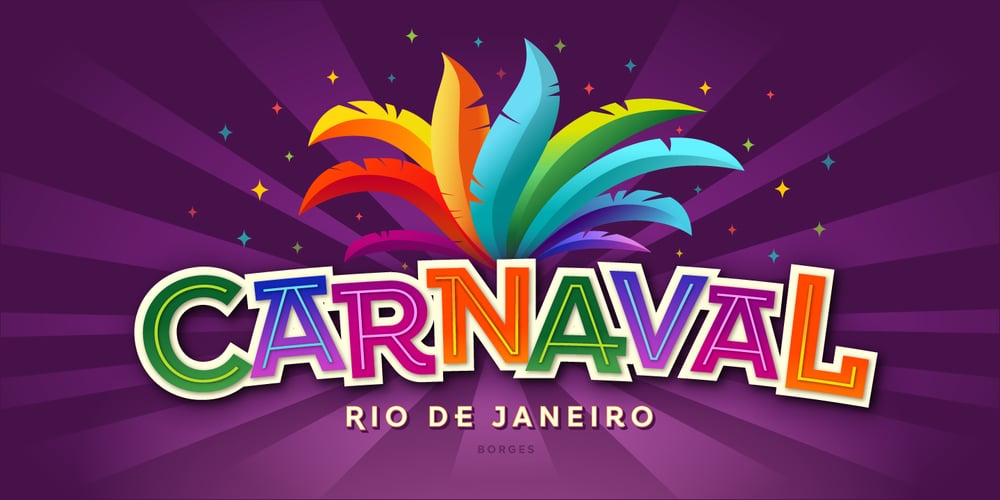
Versatile EP
Versatile EP font
Versatile EP Font Family was designed by Charles Borges de Oliveira and published by Borges Lettering. Versatile EP contains 9 styles and family package options. Versatile EP is a powerhouse of 9 fonts that make design and logo creation effortless. While other sans-serif fonts tend to be rigid and cold, Versatile stands out with it’s warm and natural feel. It’s generous x-height aids in its legibility and function, and the forms are classic yet modern allowing this font to live up to its name as a truly versatile workhorse for your next design or layout. Use it by itself, or in combination with Versatile 7 layer font package (Sold Separately.) https://www.myfonts.com/fonts/charlesborges/versatile-bold/Versatile EP contains 3 body styles, and 6 shadow fonts including striped and solid in different weights.Versatile EP is not just for the Graphic Designer. It’s well suited for the Sign Maker, Cricut and Silhouette users, and anyone else who uses a vinyl plotter. It weeds beautifully in cut vinyl. Its different layers allow the user to stack multi-colored vinyl to create one a kind signs and displays.Versatile EP is ideally suited for advertising and packaging, logo, branding and creative industries, poster and billboards, signage as well as web and screen design.What’s included: 9 Fonts included in for one low price: 3 body fonts and 6 different shadows. 1,462 Glyphs (Characters) in each font for a total of 13,158 Glyphs per style pack. Over 200 Languages supported including Cyrillic, Bulgarian Cyrillic and Greek. A massive library of Alternate Characters: Latin, Extended Latin and Cyrillic Alternates including their Diacritic and Small Cap counterparts. Superscripts, Subscripts, Numerators, Denominators, and Scientific Inferiors. Small Caps in Latin, Extended Latin and Cyrillic include Numbers, Punctuation, Diacritics and Alternates. Extended currency symbols including Bitcoin. Fun assortment of speech bubbles. Unlimited fractions. PUA Encoded Versatile EP makes designing fun!